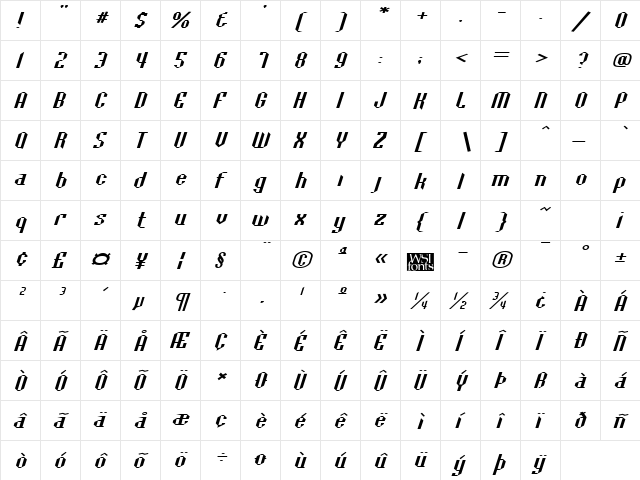
BaccusBevelExp Italic Font Preview
BaccusBevelExp Italic
Design Context for BaccusBevelExp Typeface
BaccusBevelExp is a composed and adaptable typeface that performs quietly and consistently across a wide range of design contexts. The dynamic lean of this cut emphasises speed and emphasis in any layout.
Pro Tip: Try BaccusBevelExp for annotation and caption copy alongside an upright companion — the contrast in angle creates a dynamic but ordered typographic system.